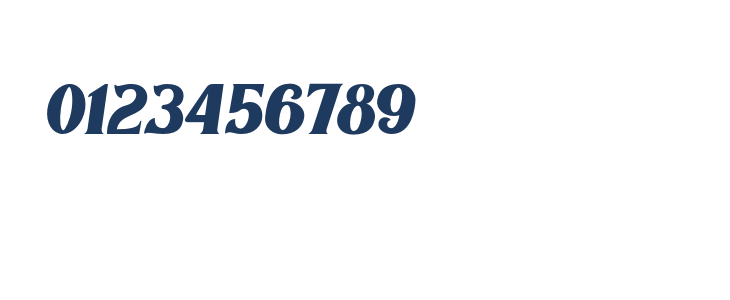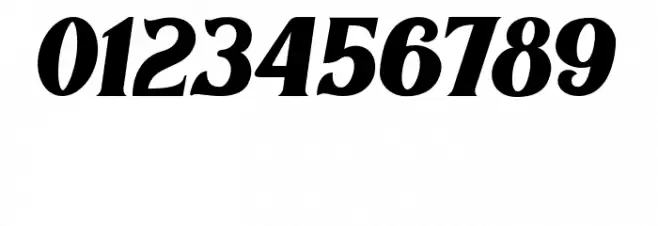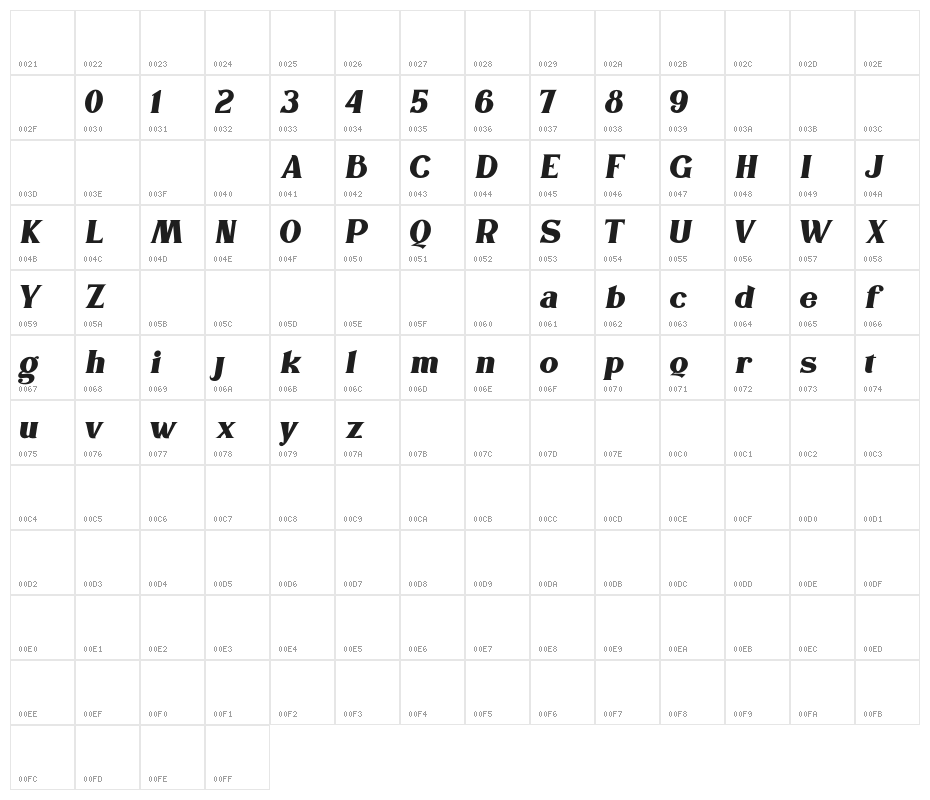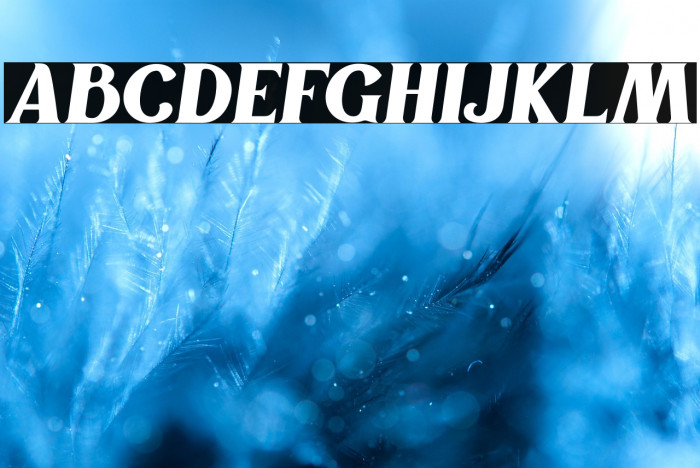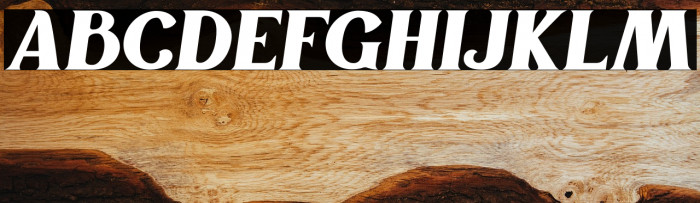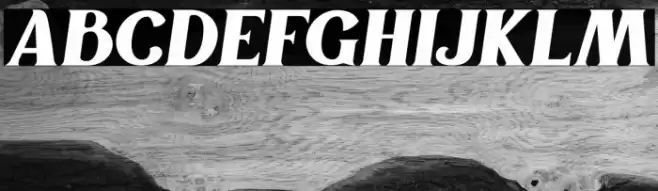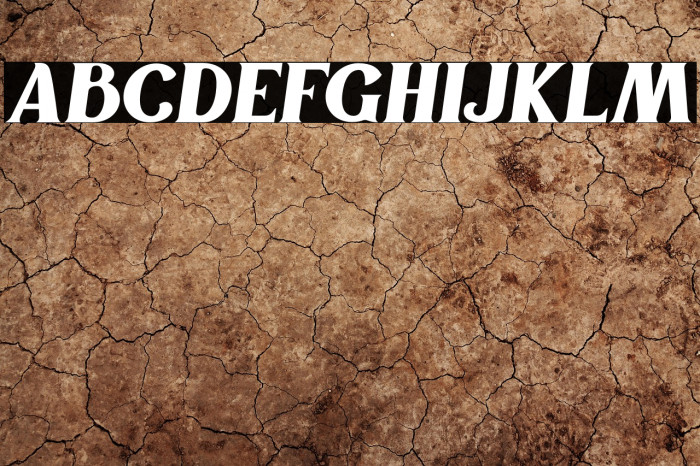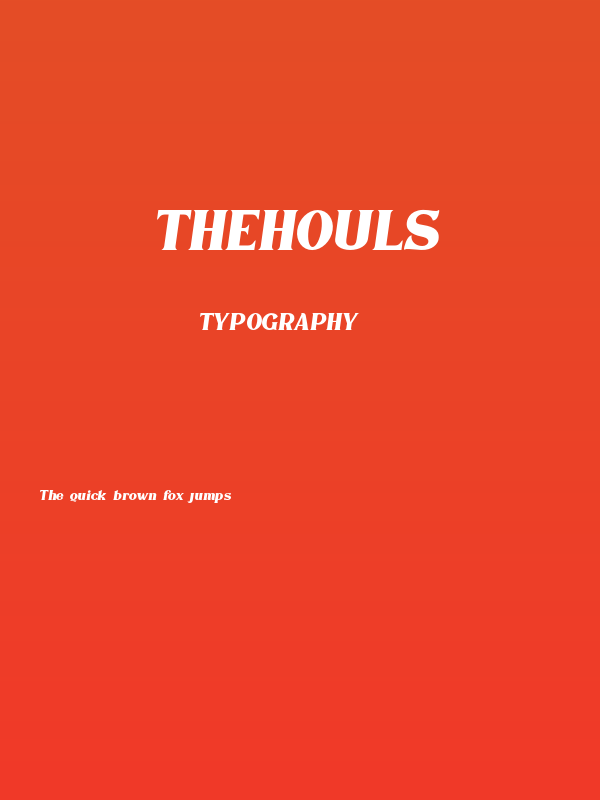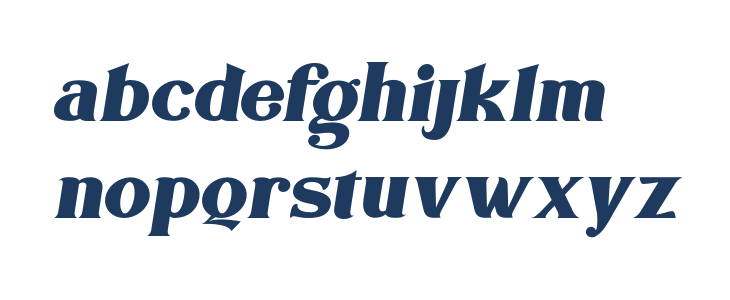
TheHouls Font
TheHouls Description
This font features a bold and dynamic style with a strong presence. The characters are slightly slanted, giving it an italicized appearance, while maintaining a robust and solid structure. The serifs are pronounced, adding a touch of elegance and sophistication. The overall design is modern yet classic, making it versatile for various applications. The numbers and special characters are consistent with the letterforms, ensuring a cohesive look across all elements. The font's boldness and unique style make it stand out, suitable for projects that require a strong visual impact.
| Proposed Projects | Ideal for headlines, branding, posters, and editorial design. |